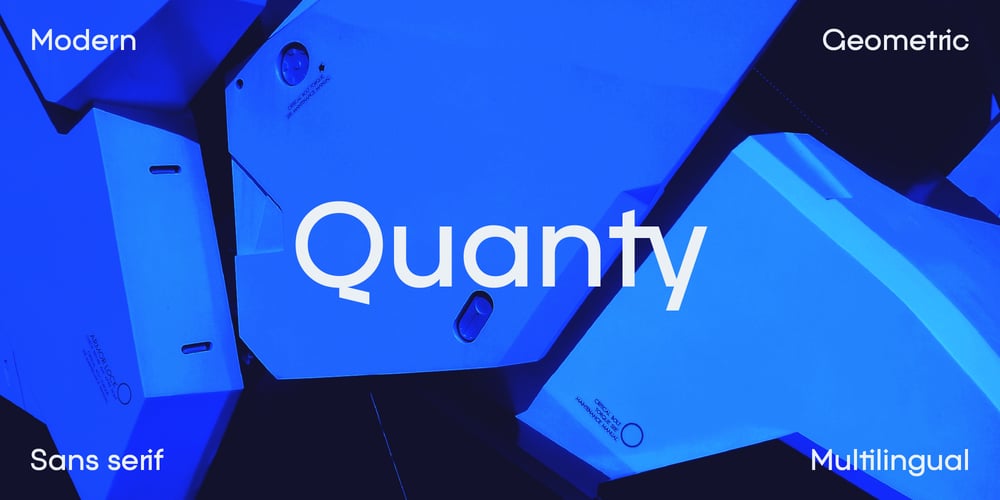
Quanty Font Family was designed by Slava Antipov and published by Slava Antipov. Quanty contains 2 styles and family package options. Quanty is a new modern sans serif with a geometric touch and with some special, display forms.This modern font has unique fresh features. It is versatile in its use: suitable for headings and typing large amounts of text.Quanty has great uses in advertising, packaging, branding, posters, magazines, logos, web sites.Will go well with the Phonk typeface.OpenType features: Access All Alternates, Glyph Composition / Decomposition, Discretionary Ligatures, Denominators, Fractions, Standard Ligatures, Localized Forms, Numerators, Ordinals, Proportional Figures, Scientific Inferiors, Superscript, Tabular Figures